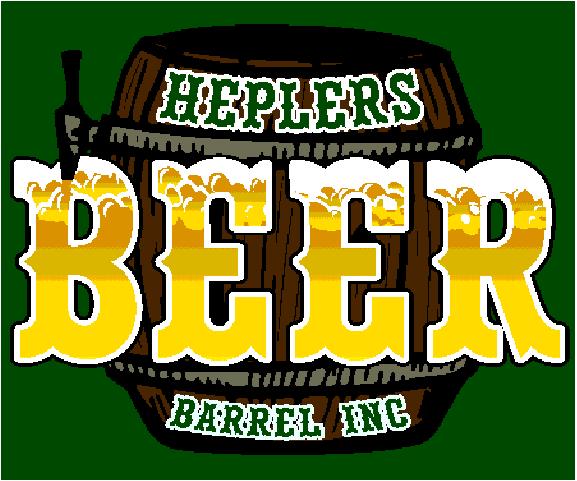
what font is this?
can someone please tell me what font this is?
Rex, I didn't find a match to any Western, but I did to "wood type".
URW Wood Type (D)
The closest I've found was "opera house bold".
My mistake Sky, Woodtype has round nodes, however it is "Western", a bold or black variation. sorry i dont recall where i got it.
Also try "Quentin".Get rid of the crap inside the outer stroke and tweek the round nodes to square. WoodType is the outer stroke of quentin, also the R might need a slight tweek. My woodtype came from a corel package and my quentin is itc i believe.
cowboy western has flat tops and bottoms... and other differences..... but its close.
It has to be a modified version of "Opera House"